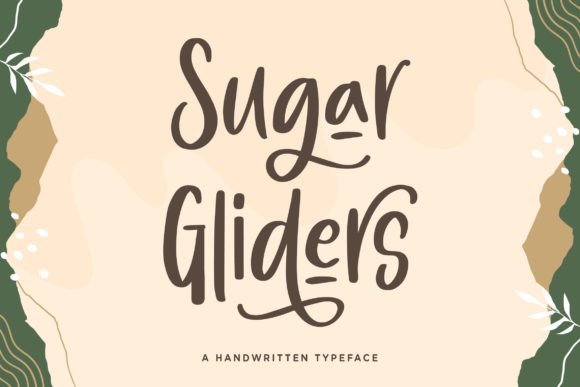
**Sugar Gliders Font: Where Sweetness Meets Style**
Unleash the enchanting charm of Sugar Gliders, a meticulously crafted font that will elevate your digital creations to new heights. Each letter is a whimsical dance of strokes, effortlessly captivating the eye and eliciting a sense of childlike wonder.
Born from the artistry of TypeFactory, Sugar Gliders is a display font that defies the ordinary. Its graceful curves and whimsical flourishes evoke the carefree spirit of a sugar glider, adding a touch of playful elegance to your designs.
This font is not just a collection of characters; it's a symphony of shapes and strokes that harmoniously blend to create a captivating visual experience. Welcome to the world of Sugar Gliders, where your words will dance across screens, leaving an unforgettable impression on every reader.
**The Perfect Match for Your Digital Masterpieces**
Whether you're designing social media posts that demand attention or crafting eye-catching headlines that draw in readers, Sugar Gliders is your perfect companion. Its versatility extends to a wide range of digital applications, from website banners to email marketing campaigns.
Imagine the impact your designs will create when infused with the sweet allure of Sugar Gliders. Your words will not just be read—they will be savored, each letter a delectable treat for the eyes.
**Captivating and Unforgettable**
Sugar Gliders is more than just a font; it's a visual storyteller. Its unique style has the power to evoke emotions, create connections, and leave a lasting impression on your audience.
Indulge in the sugary sweetness of Sugar Gliders and witness how your designs transform into enchanting works of art. Let this font be your secret weapon, captivating your audience with its whimsical charm.